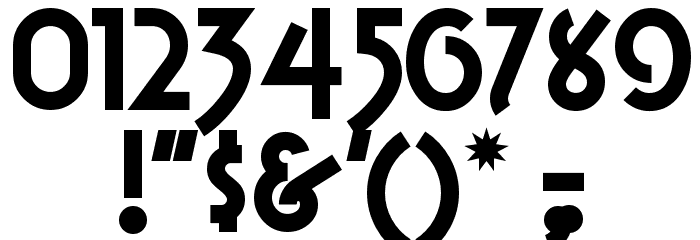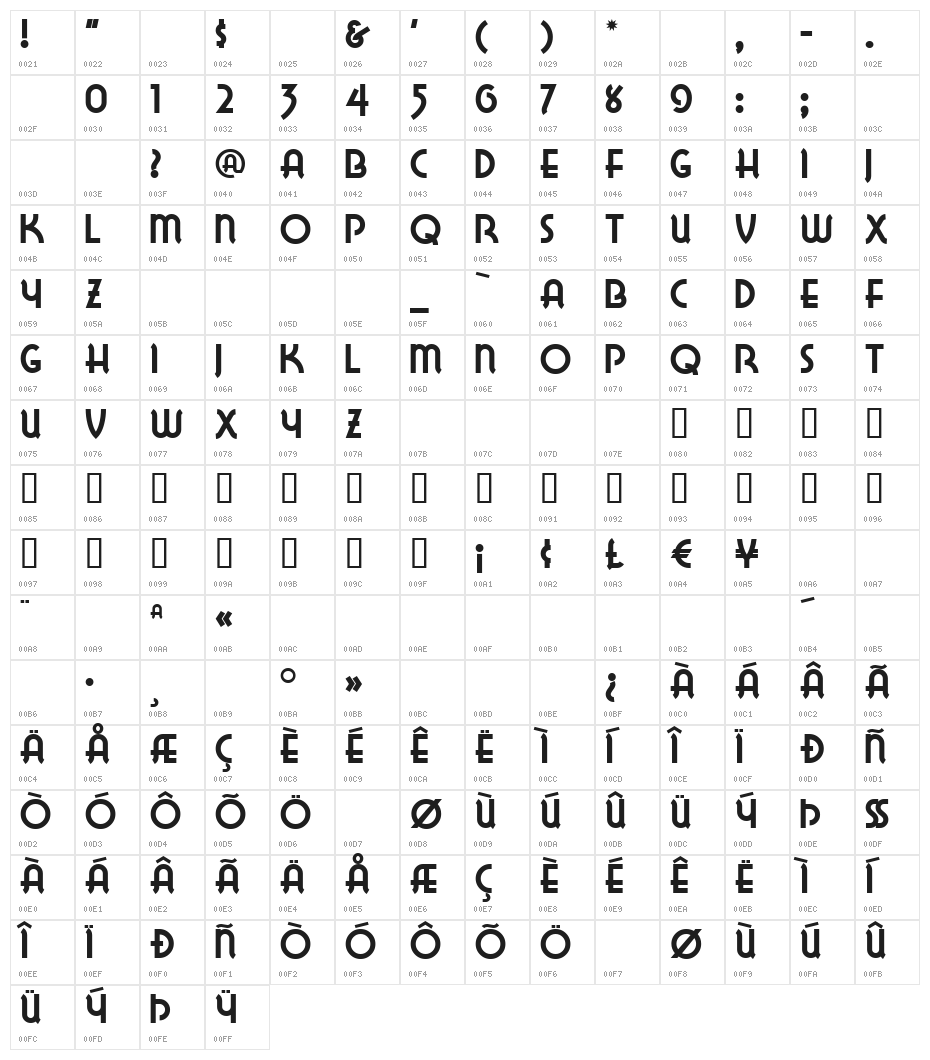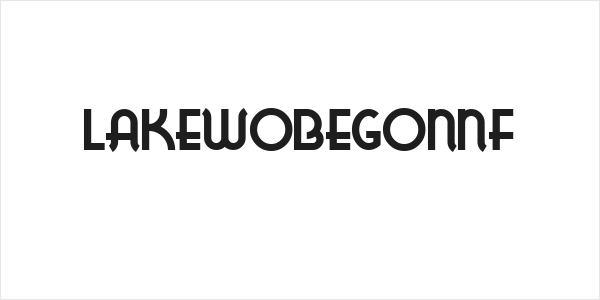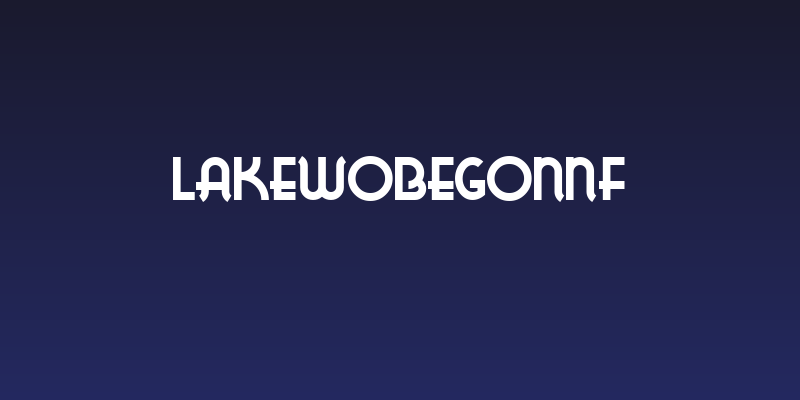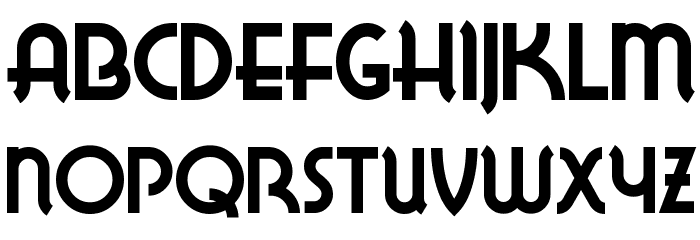
LakeWobegonNF Font
LakeWobegonNF Description
This font features a bold and geometric design with strong, clean lines and a distinct Art Deco influence. The characters are crafted with a unique blend of curves and sharp angles, creating a striking visual impact. The uppercase and lowercase letters maintain a consistent style, with a slight variation in the curvature and terminal endings. The numerals are equally bold, with a modern flair that complements the overall aesthetic. Special characters are designed to match the boldness and geometric nature of the alphabet, making them suitable for a variety of design applications.
| Proposed Projects | Ideal for branding, posters, headlines, and any project requiring a bold, modern aesthetic. |